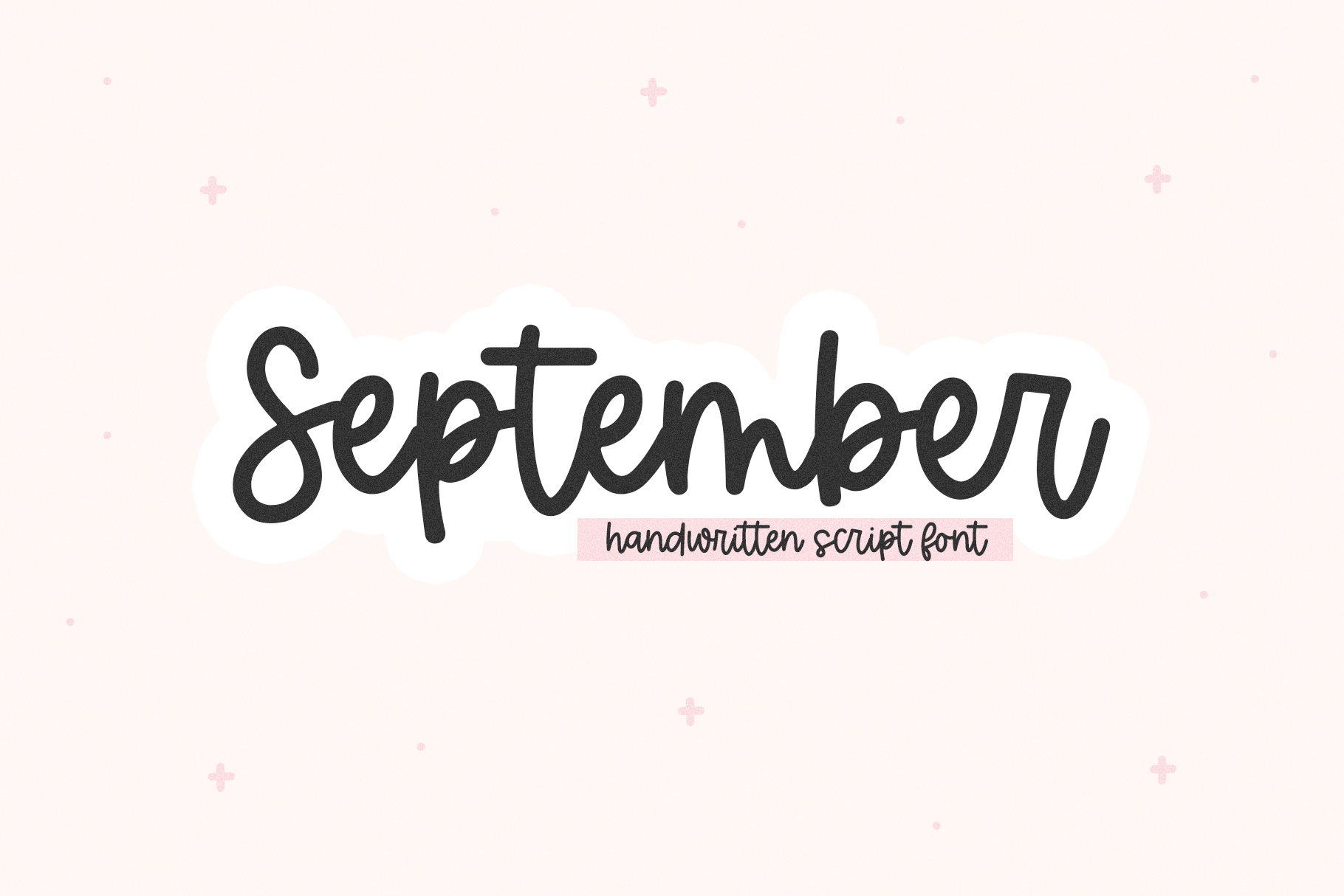
September | Handwritten Script Font
September is a cute handwritten script font!
This font is perfect for branding, logos, invitations, business cards, web, instagram, social media, quotes, prints, wall decor, cricut projects, and more!